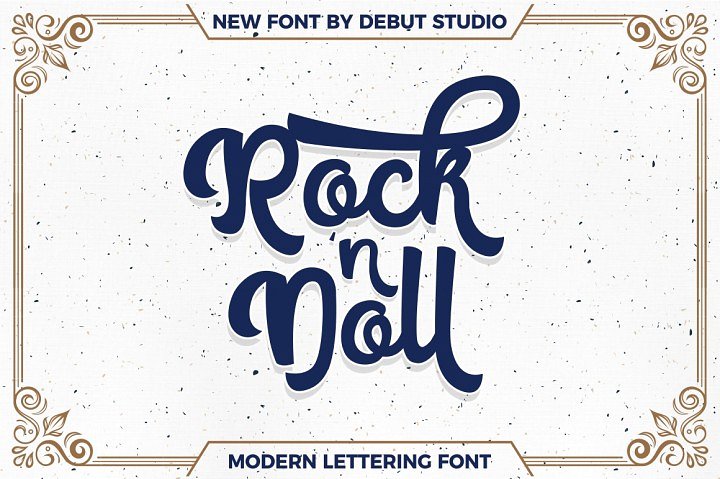
Welcome, font explorers! Prepare to be captivated by Rock 'n Doll Font, a captivating script that oozes creativity and imagination. This font family is your gateway to a world of individuality and charm, where your words come alive with playful energy.
Unleash your inner artist and dive into the depths of creativity with Rock 'n Doll Script. This font duo features a charming primary font and a captivating swash font, giving you infinite possibilities to craft designs that leave a lasting impression.
Designers, bloggers, and social media mavens, rejoice! Rock 'n Doll Script is your secret weapon to create logos, invitations, social media posts, and branding materials that radiate personality. Its playful lines and energetic curves evoke a sense of joy and excitement, making it perfect for capturing the essence of carefree summer days, passionate love stories, and vibrant retro aesthetics.
This font is a treasure trove of beauty, versatility, and expressive power. Use it to add a touch of whimsy to your wedding invitations, a dash of flair to your blog posts, or a burst of energy to your social media campaigns. Its playful spirit is infectious, spreading joy and capturing hearts wherever it goes.
Don't miss out on this chance to add a touch of magic to your creative arsenal. Embrace the spirit of Rock 'n Doll Script, let your imagination soar, and watch as your designs transform into captivating masterpieces that speak volumes.